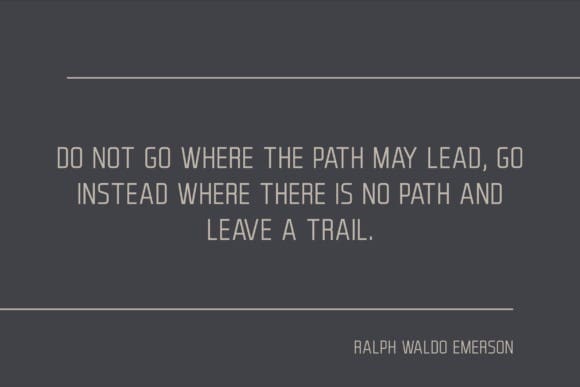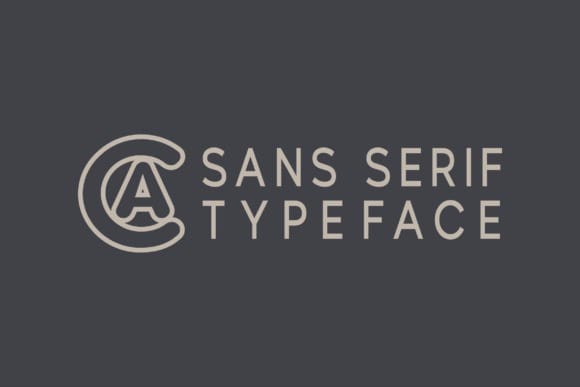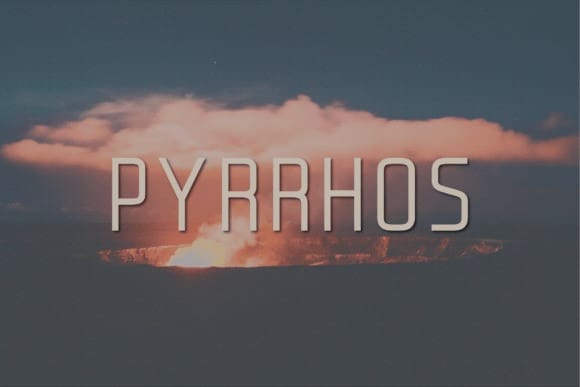
Pyrrhos Font
Pyrrhos Font, a sophisticated, contemporary sans-serif font that embodies style and elegance. Pyrrhos features capital letters, digitals from 0-9, along with a wide array of punctuation and symbols that enhance its versatility. This magnificent typeface has the flexibility to seamlessly elevate the appeal of logos, wedding invites, quotes, commercials, print materials, magazines, and beyond! Its refined, versatile character makes it the ideal tool for creating dynamic expressive content that stands out.